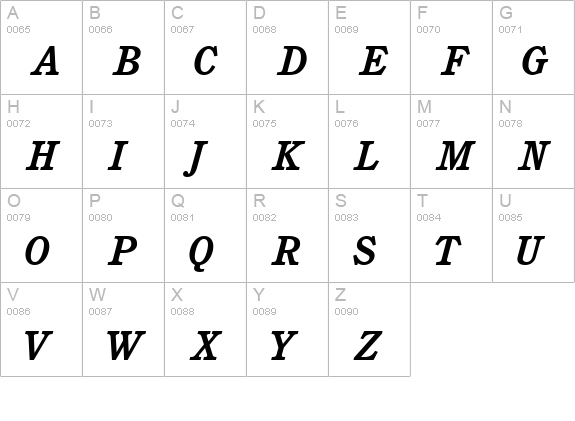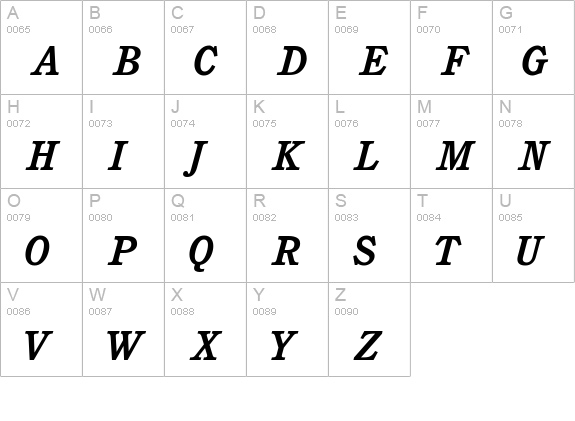
Perspective SSi Bold Italic is a strong, high-contrast, italic variant in the Perspective typeface family \xE2\x80\x94 well suited to headlines, attention-grabbing titles, and strong calls-to-action.
Perspective SSi Bold Italic font is a striking and versatile typeface that exudes an air of sophistication and modernity. With its bold and italic design, this font effortlessly adds a touch of elegance to any project or design. The unique combination of thick, bold strokes and slanted italics creates a sense of movement and dynamism, making Perspective SSi Bold Italic font perfect for attention-grabbing headlines, eye-catching logos, and stylish branding materials. This font's sleek and contemporary aesthetic is complemented by its exceptional legibility, ensuring that your message is conveyed with clarity and impact. Whether used in print or digital mediums, Perspective SSi Bold Italic font is sure to captivate and engage your audience. One of the best aspects of Perspective SSi Bold Italic font is that it is freely available to download at FontsMarket.com. This means that you can easily access and utilize this stunning typeface for a wide range of personal and commercial projects without any cost. So, if you're in search of a font that combines elegance, versatility, and a touch of boldness, look no further than Perspective SSi Bold Italic font. Download it for free at FontsMarket.com and elevate your designs with its striking presence and undeniable charm.